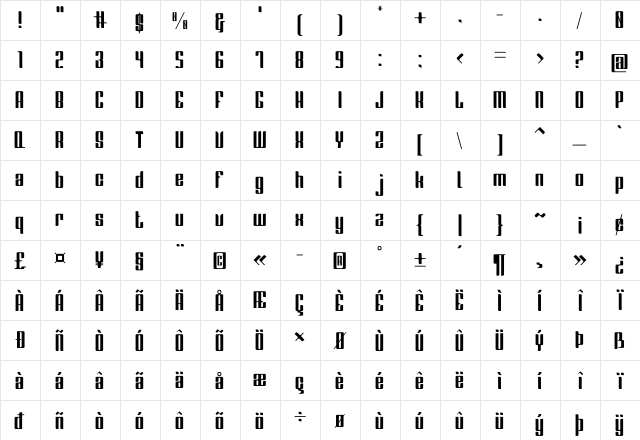
Greenleaf Regular
Design Context for Greenleaf Typeface
Greenleaf is a composed and adaptable typeface that performs quietly and consistently across a wide range of design contexts.